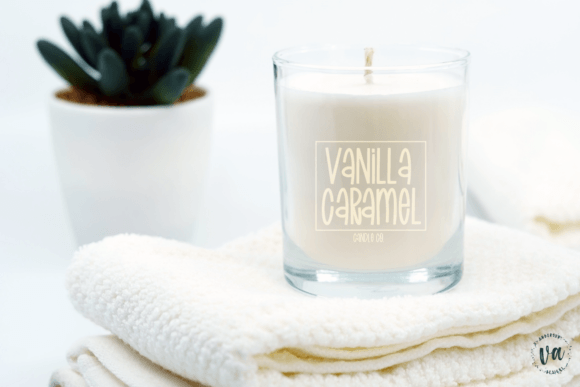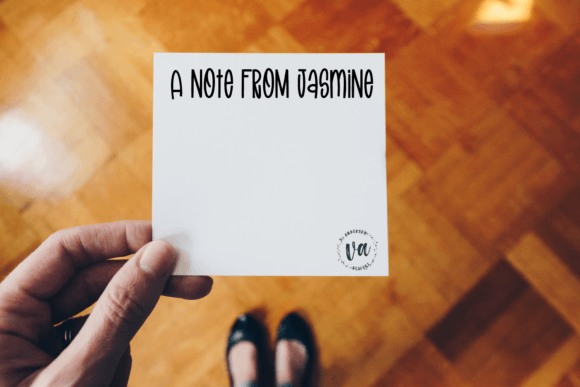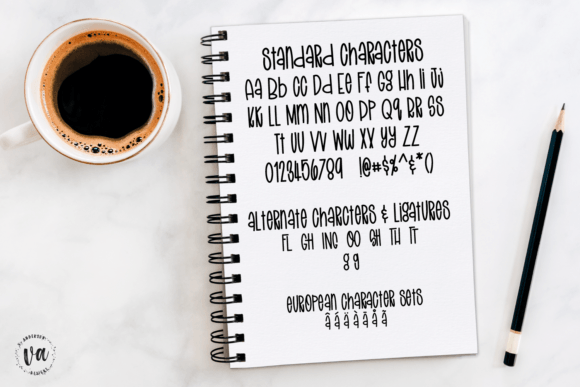
Introducing Flashy Sunset Font: Add a Personal Touch to Your Designs
Are you tired of using the same old fonts for your designs? Do you want to add a personal touch to your greeting cards, branding, and crafting files? Look no further than Flashy Sunset Font, a beautiful handwritten mixed-case/unicase font that’s perfect for designers and crafters alike.
What is Flashy Sunset Font?
Flashy Sunset Font is a unique and stylish handwritten font that’s designed to give your products a personal and handmade feel. This mixed-case/unicase font is perfect for adding a touch of whimsy and charm to your designs, making it ideal for a variety of projects, from greeting cards and invitations to branding and crafting files.
Key Features of Flashy Sunset Font
- Handwritten style: Flashy Sunset Font has a beautiful, handwritten style that’s perfect for adding a personal touch to your designs.
- Mixed-case/unicase: This font features a unique mix of uppercase and lowercase letters, making it perfect for creating eye-catching and stylish text.
- Perfect for designers and crafters: Whether you’re a professional designer or a crafter looking to add a personal touch to your projects, Flashy Sunset Font is the perfect choice.
Uses for Flashy Sunset Font
Flashy Sunset Font is a versatile font that can be used for a variety of projects, including:
- Greeting cards: Add a personal touch to your greeting cards with Flashy Sunset Font, perfect for birthdays, holidays, and special occasions.
- Branding: Use Flashy Sunset Font to create eye-catching and stylish branding for your business, including logos, packaging, and marketing materials.
- Crafting files: Add a touch of whimsy and charm to your crafting files, including SVG files, iron-on designs, and more.
Why Choose Flashy Sunset Font?
With so many fonts to choose from, why should you choose Flashy Sunset Font? Here are just a few reasons:
- Unique style: Flashy Sunset Font has a unique and stylish handwritten style that’s sure to stand out from the crowd.
- High-quality design: Flashy Sunset Font is designed with high-quality and clarity in mind, ensuring that your text looks great in any project.
Tips for Using Flashy Sunset Font
Here are a few tips for getting the most out of Flashy Sunset Font:
- Experiment with different colors: Flashy Sunset Font looks great in a variety of colors, so don’t be afraid to experiment and find the perfect color for your project.
- Mix and match with other fonts: Flashy Sunset Font pairs well with a variety of other fonts, so try mixing and matching to create a unique look.
- Use it for headings and titles: Flashy Sunset Font is perfect for headings and titles, adding a touch of style and personality to your text.
If you’re looking for a unique and stylish font to add a personal touch to your designs, look no further than Flashy Sunset Font. With its beautiful handwritten style, mixed-case/unicase design, and versatility, this font is perfect for designers and crafters alike. So why wait? Download Flashy Sunset Font today and start adding a touch of whimsy and charm to your projects!